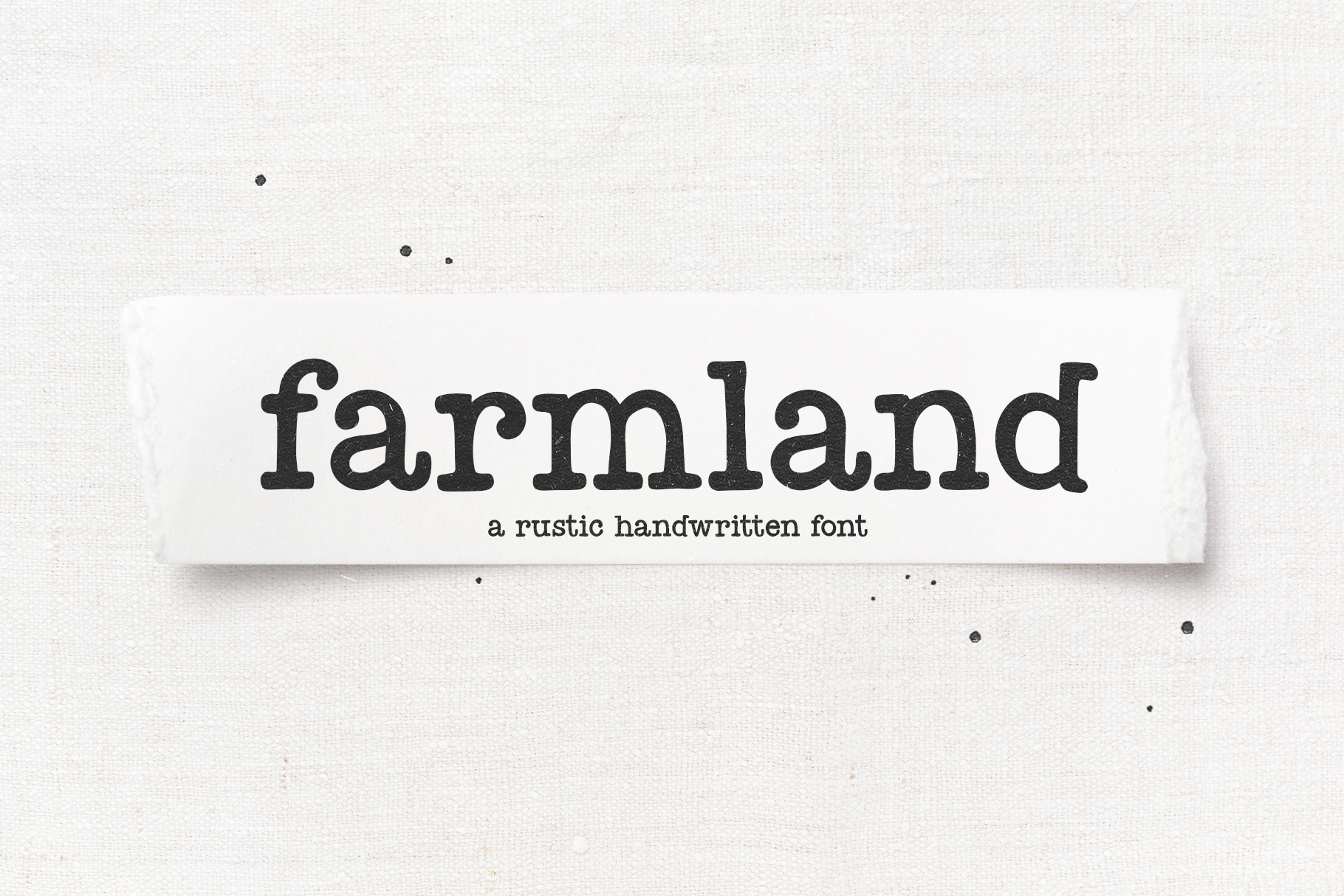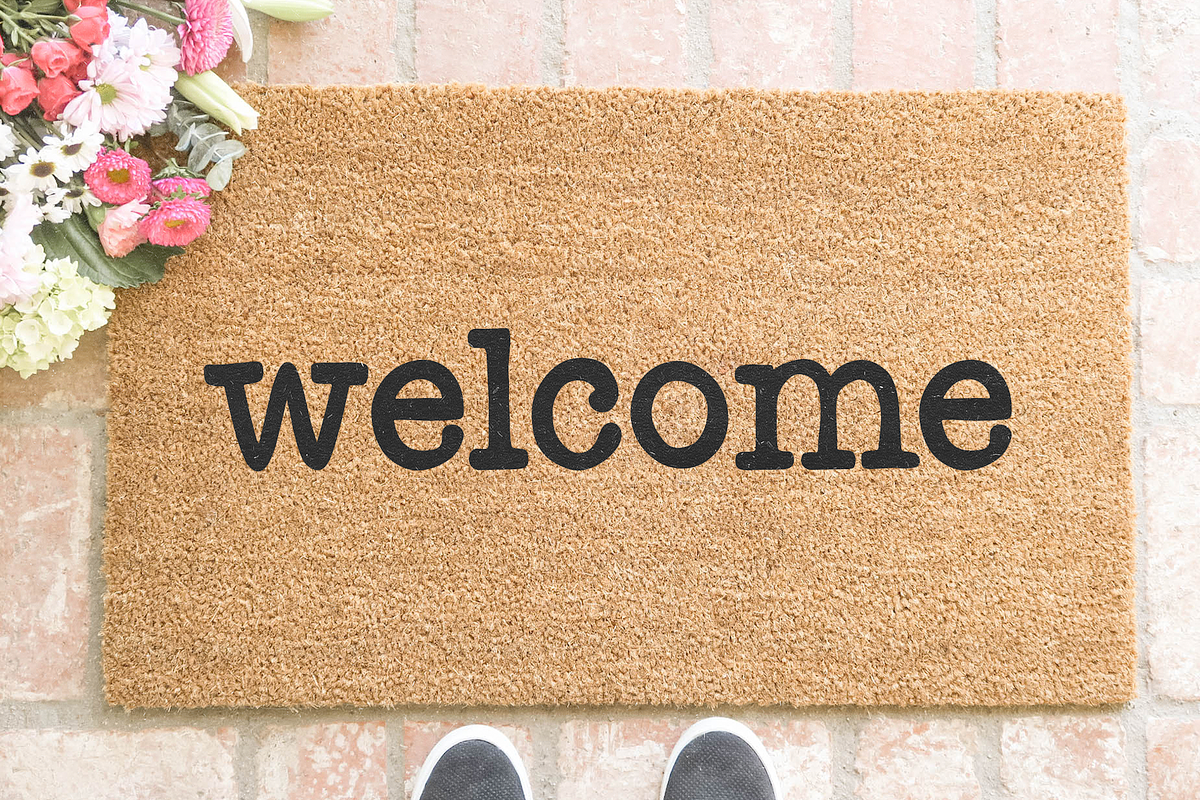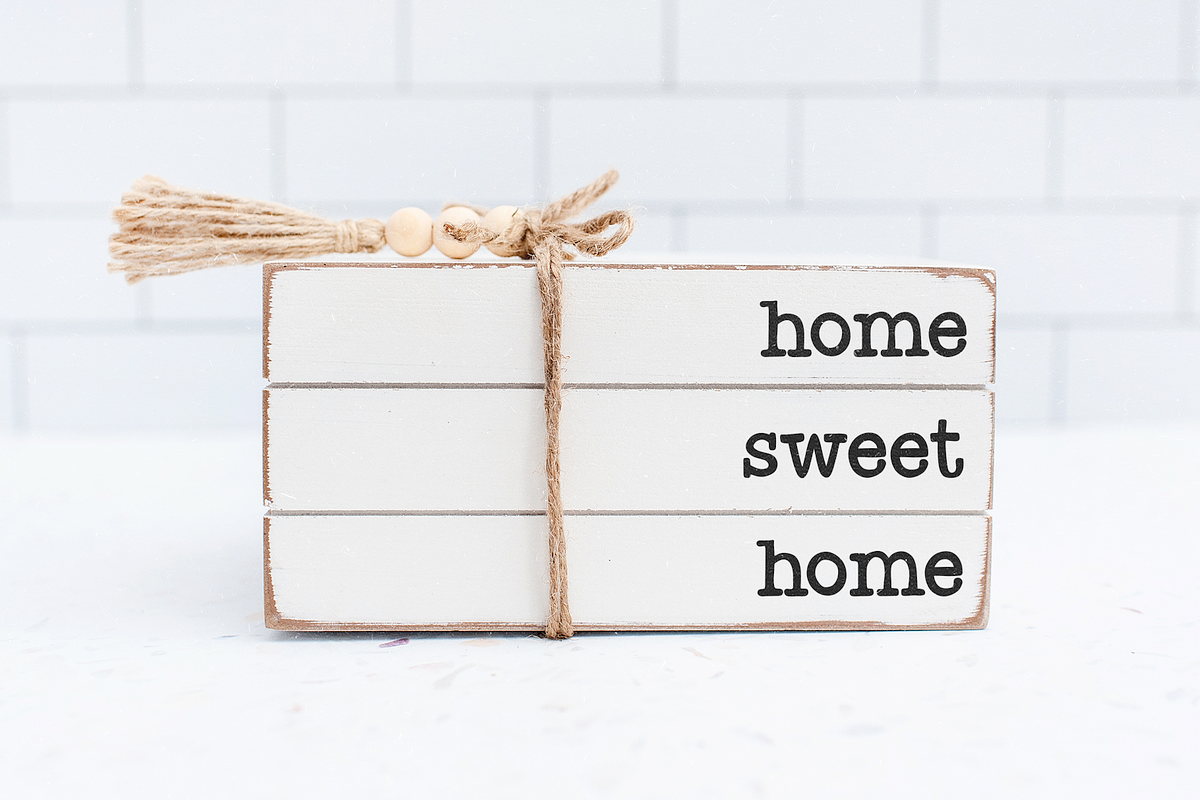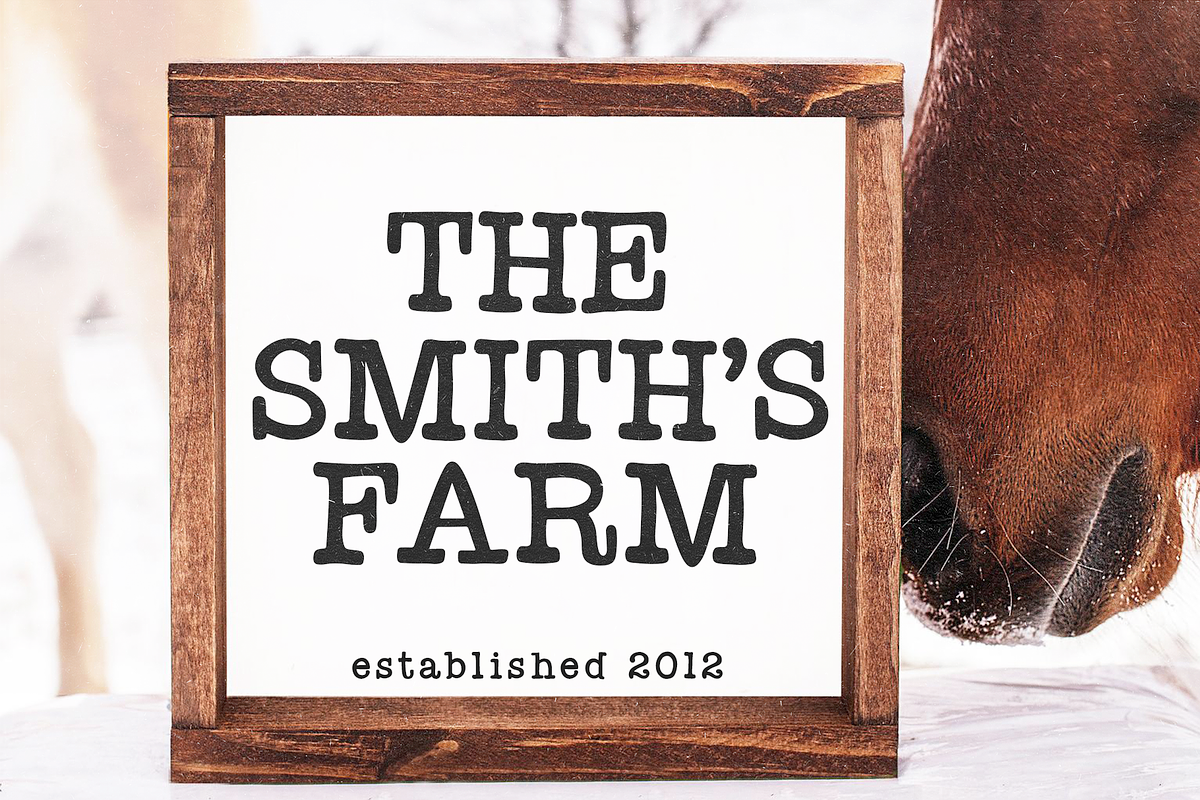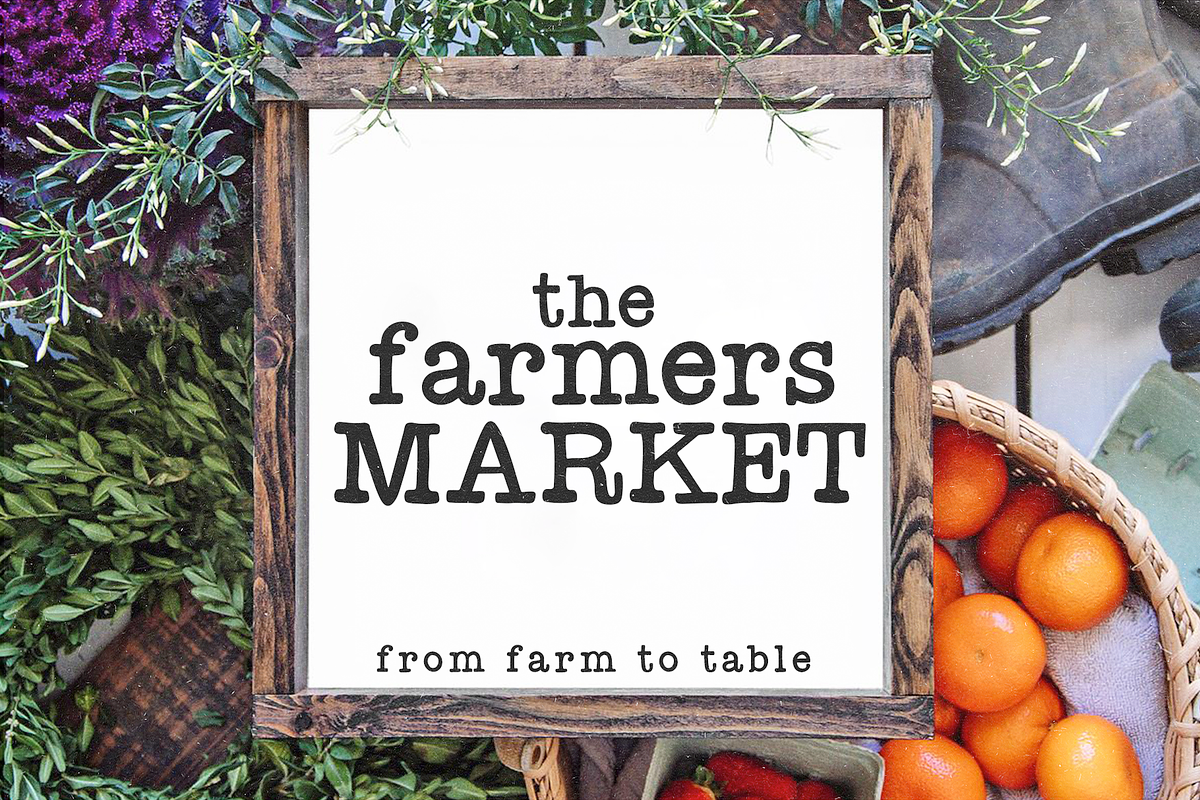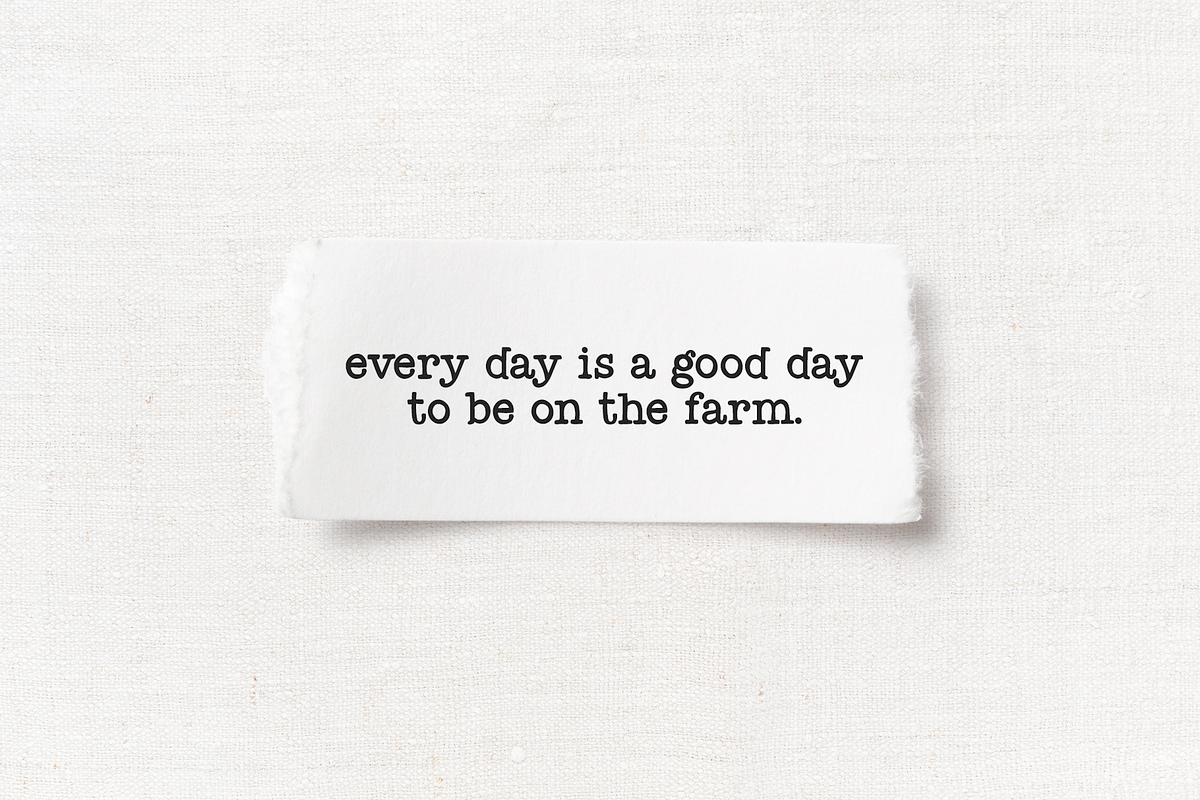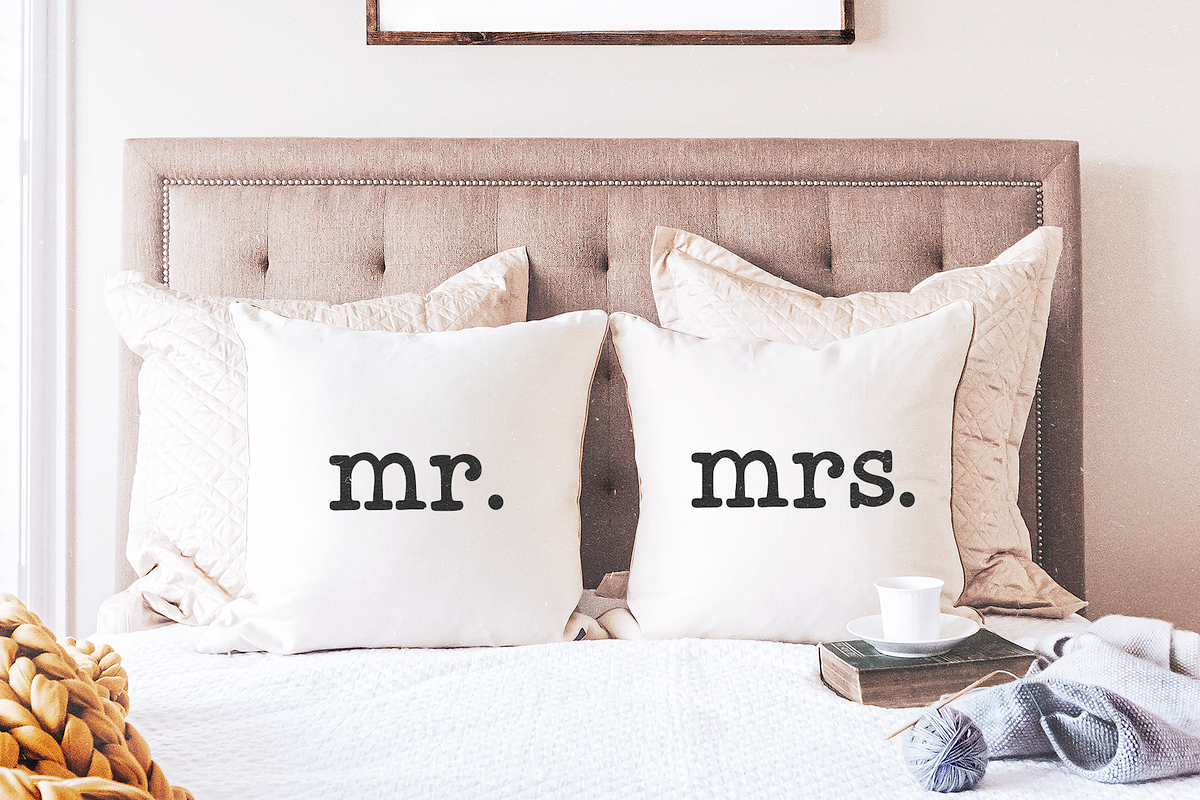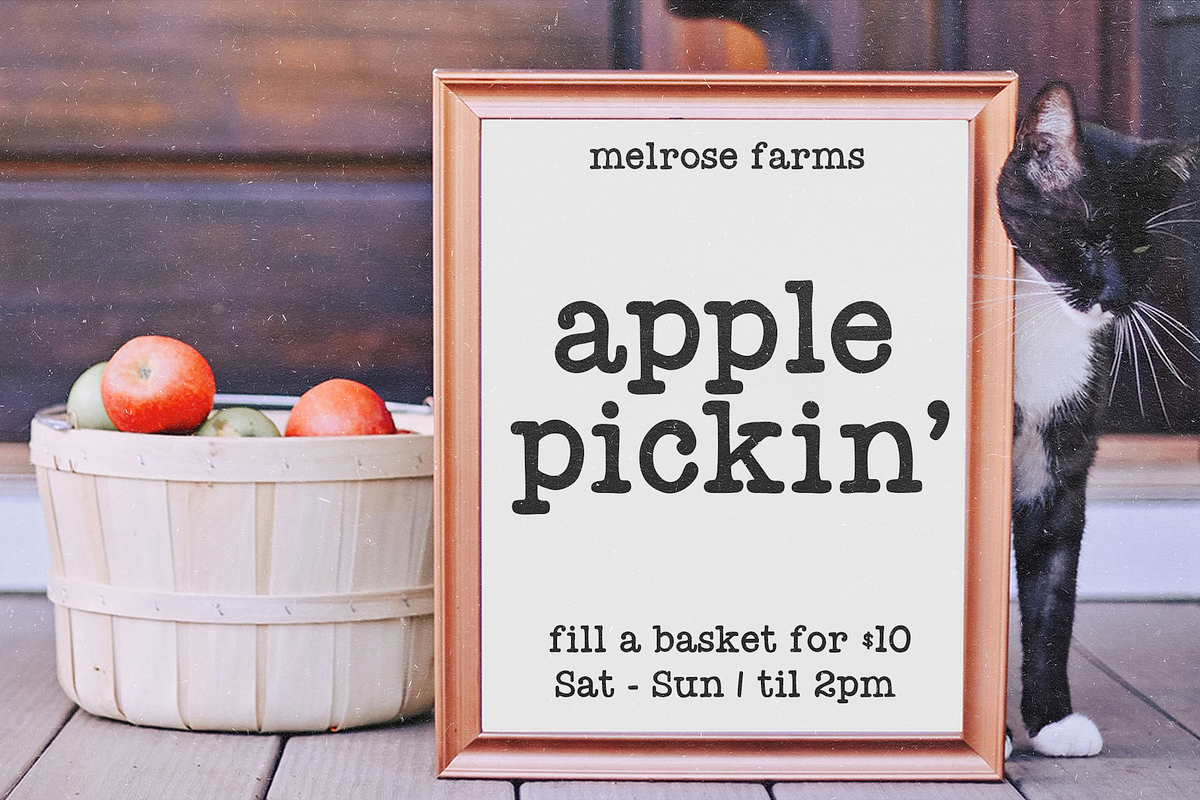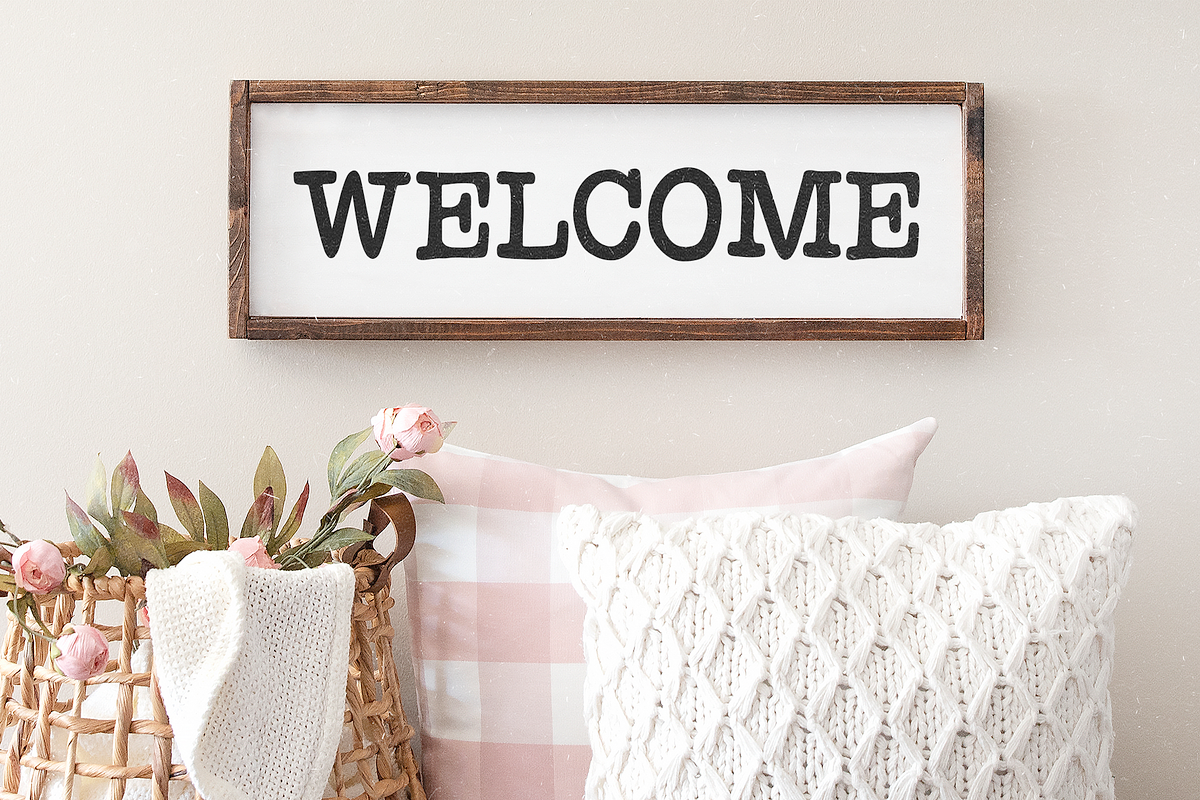
Farmland | Rustic Typewriter Font
Farmland is a rustic typewriter style font.
This font is perfect for all of your farmhouse designs, cricut projects, svg files, branding, logos and more!